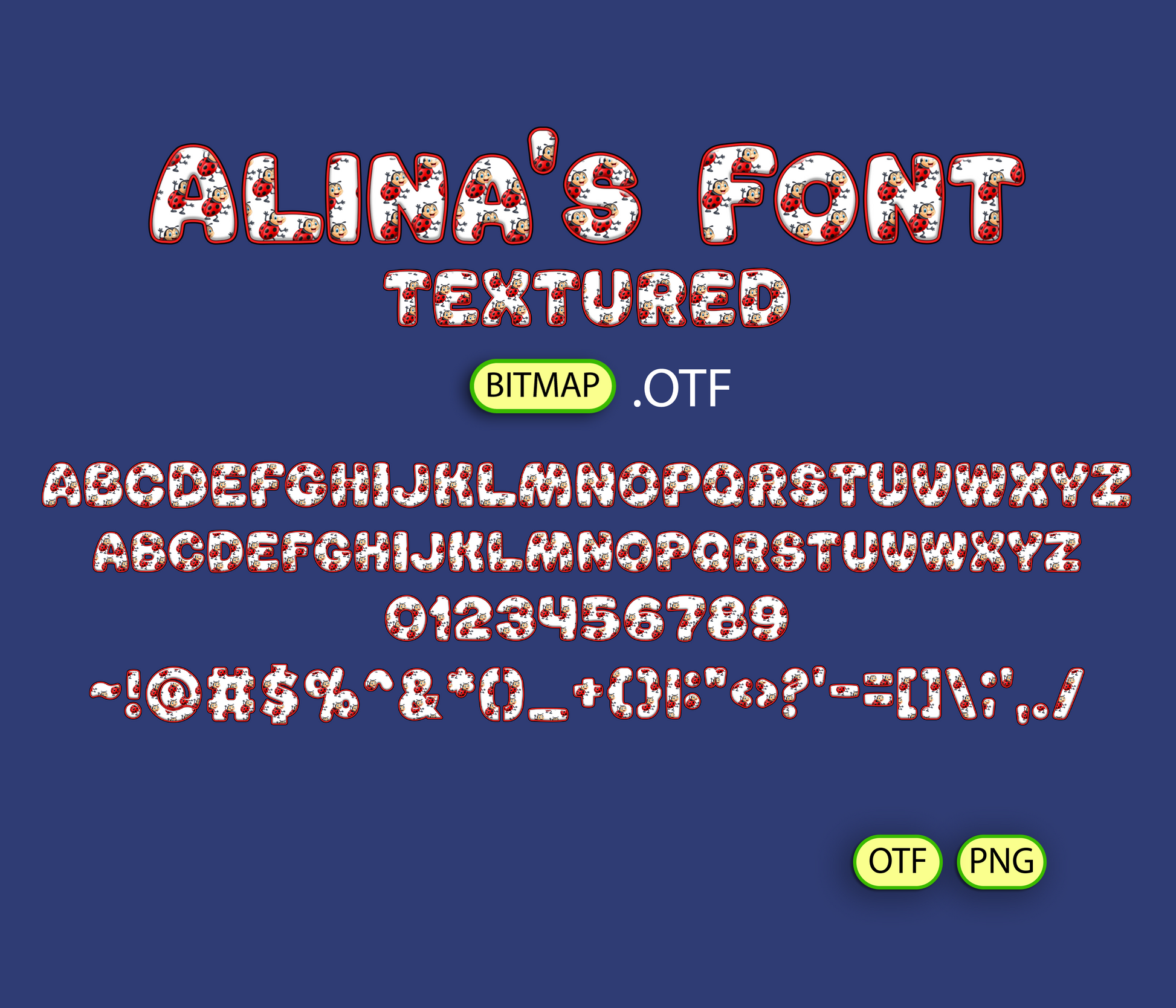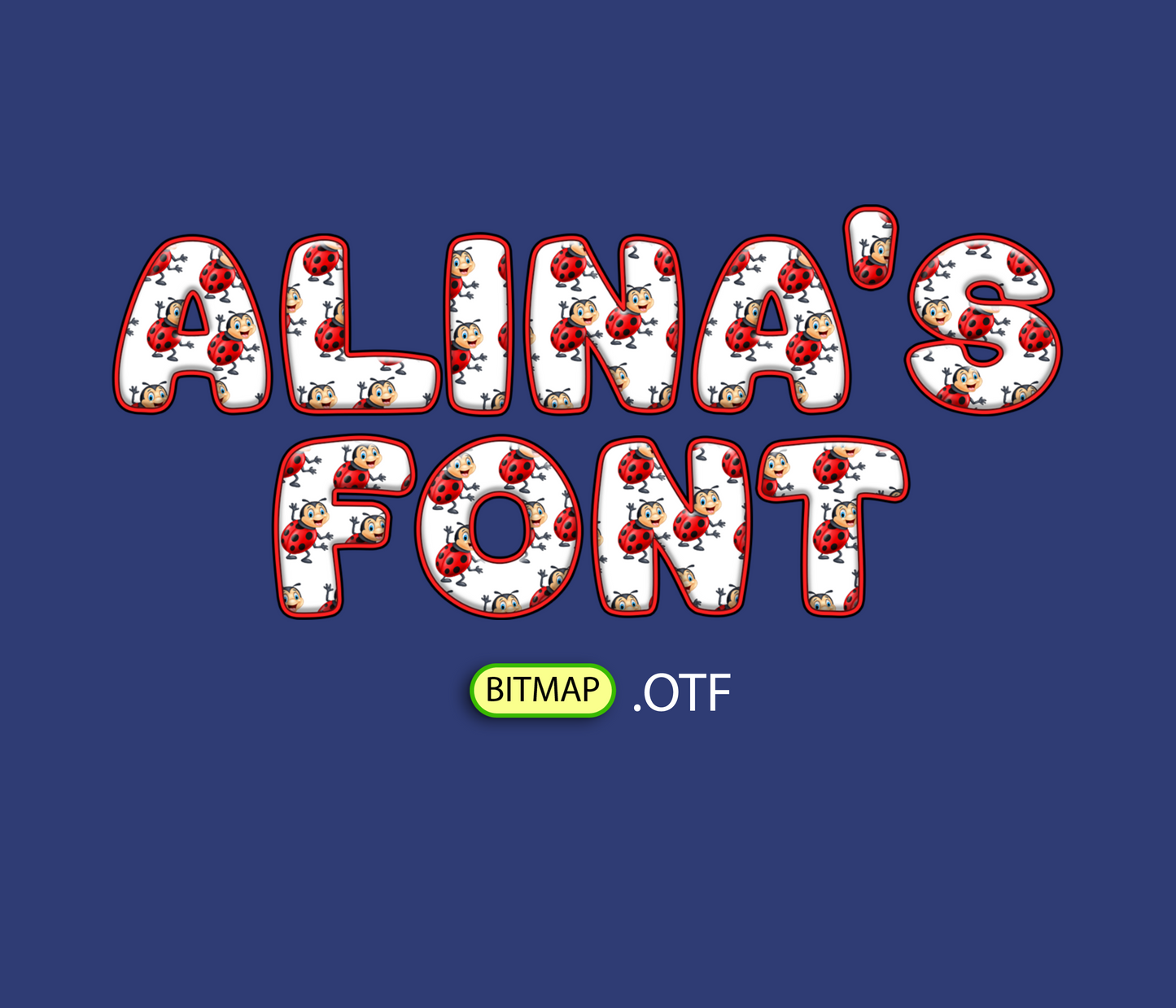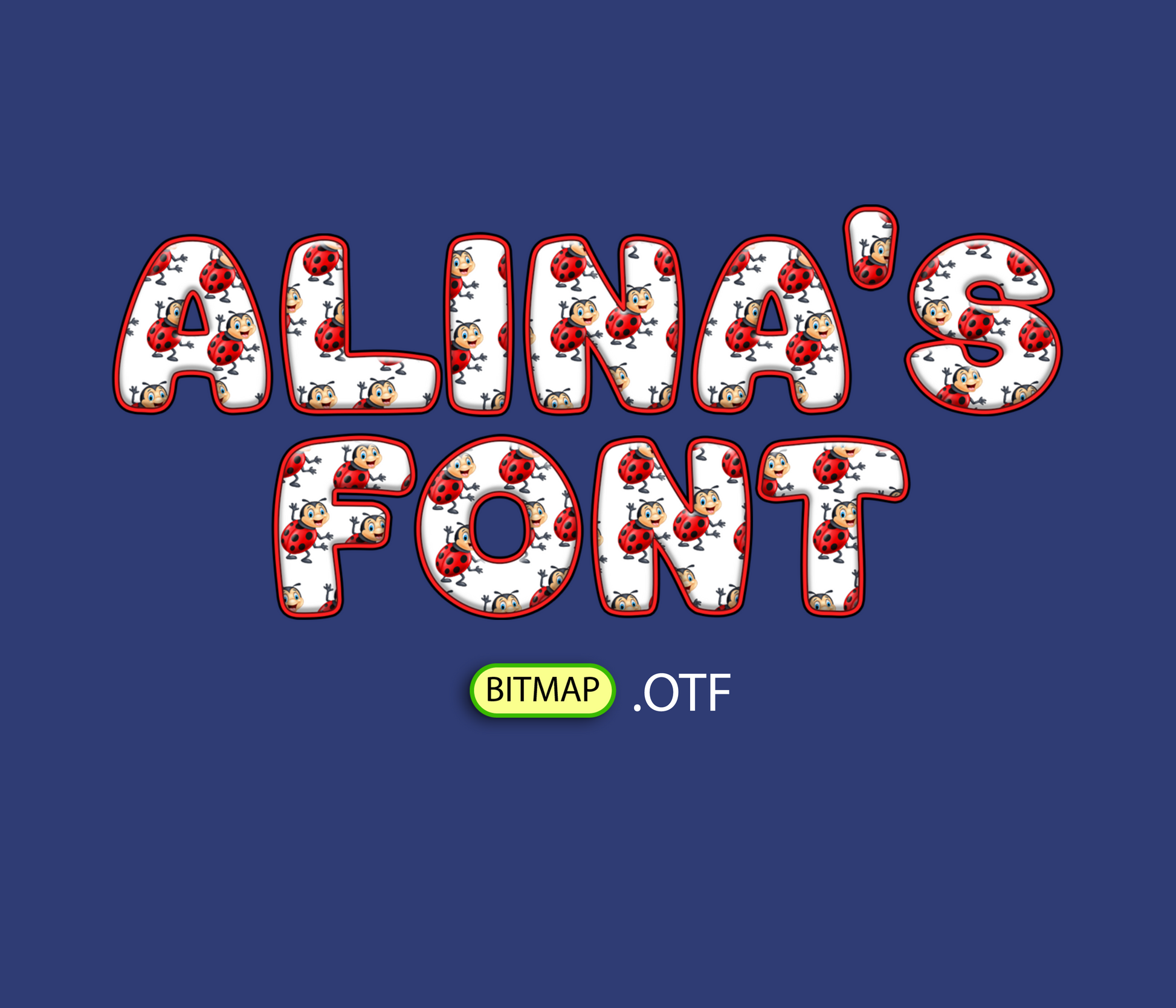
Ladybug Typeface Textured Spotted Edition
Enter the charming world of nature's most beloved garden guardians with our Ladybug Typeface, capturing the essence of glossy red shells, distinctive black spots, and cheerful garden adventures. Perfect for organic gardening businesses, children's educational materials, nature-themed brands, and creative professionals, this font brings the playful, protective spirit of these beneficial insects to your projects. Create delightful signage, garden-themed products, or digital content with the vibrant, spotted charm of summer gardens and pest-free vegetable patches.
Our Ladybug Typeface features rounded, dome-inspired shapes, distinctive spot patterns, and cheerful characters reflecting the friendly and beneficial aesthetic of these garden helpers. Ideal for: